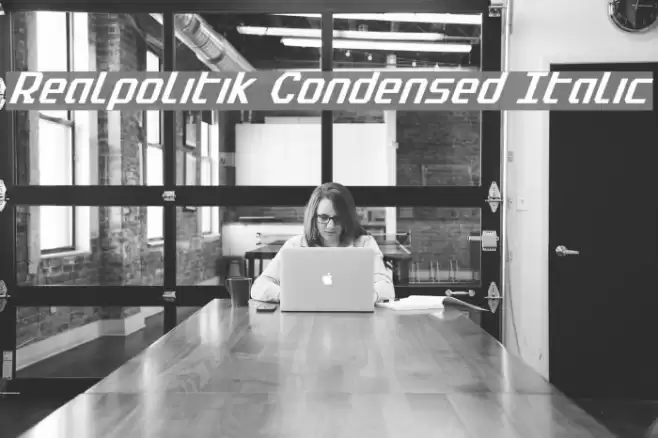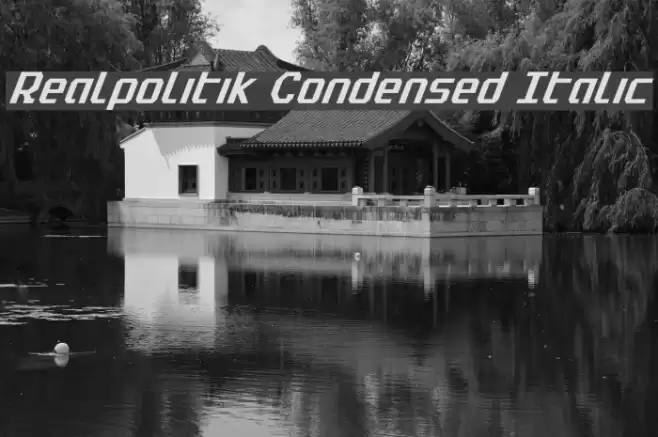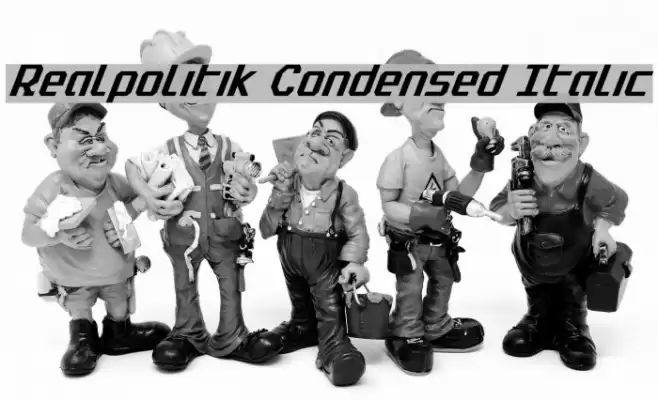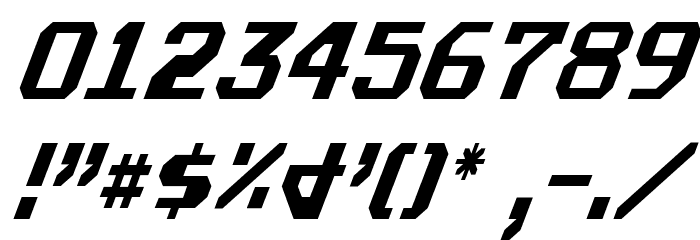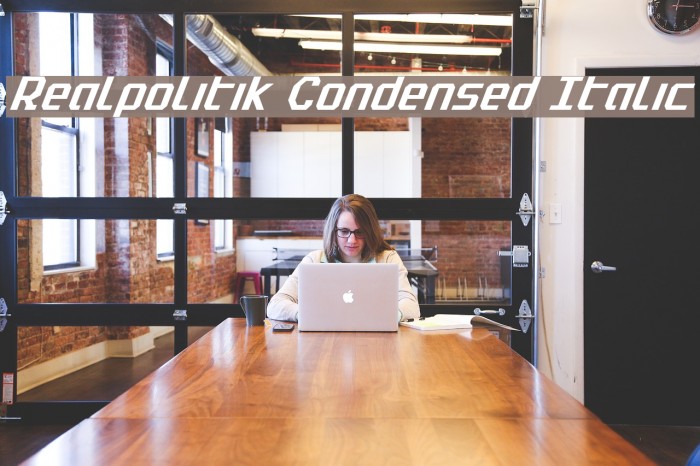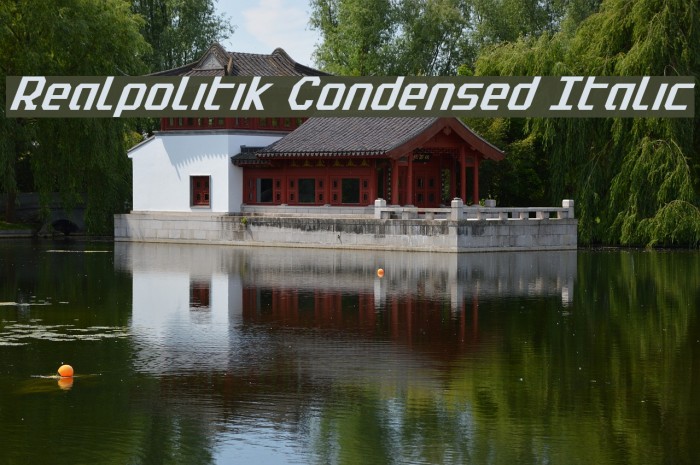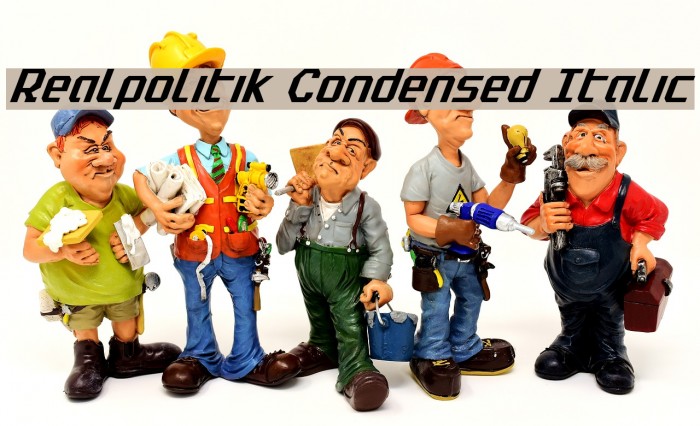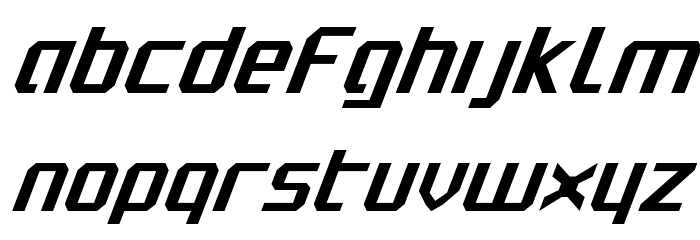
Realpolitik Condensed Italic Font
Realpolitik Condensed Italic Description
This font exhibits a modern and dynamic style with a condensed and italicized form. The characters are angular and geometric, giving a sense of movement and urgency. The uppercase and lowercase letters maintain a consistent slant, enhancing the italic effect. The numbers and special characters follow the same design principles, ensuring uniformity across all glyphs. The font's boldness is evident, making it suitable for impactful designs. Its condensed nature allows for efficient use of space, making it ideal for headlines or titles where space is limited.
A modern, condensed italic font with bold, angular characters from Uncategorized fonts.
- Proposed Projects: Ideal for branding, advertising, posters, and any project requiring a bold, modern aesthetic.
- Character Spacing: Tight